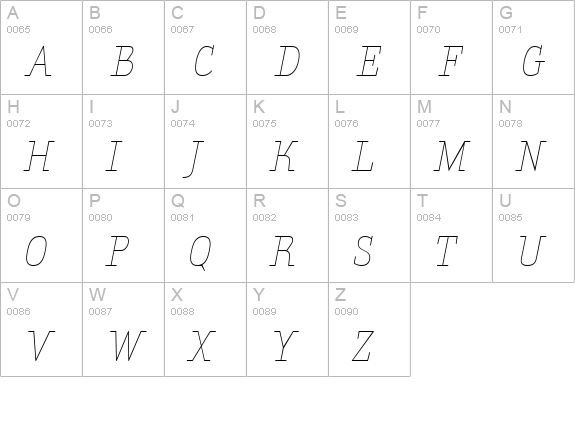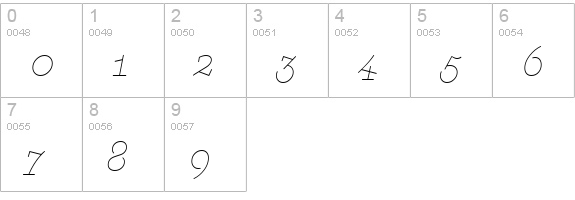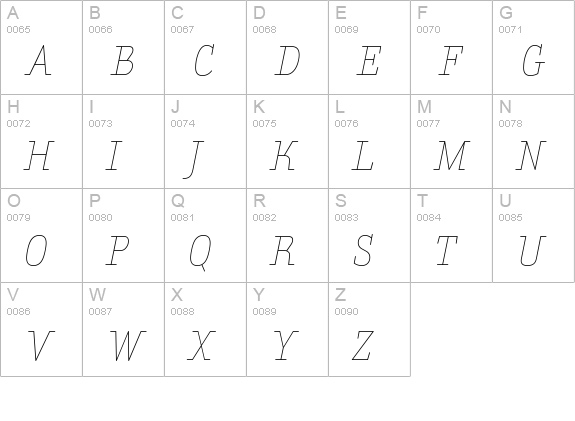
AmintaLightItalic Font Details
AmintaLightItalic is a delicate and elegant typeface that exudes sophistication and charm. Featuring graceful, slanted letterforms with a touch of whimsy, this font is perfect for adding a touch of elegance to your designs. The thin strokes and flowing curves of AmintaLightItalic create a sense of lightness and grace, making it ideal for use in projects that require a stylish and sophisticated touch. What makes AmintaLightItalic even more appealing is that it is available for free download at FontsMarket.com. This means that you can easily access this beautiful font and use it in your projects without any cost. Whether you are working on a branding project, invitation design, or any other creative endeavor, AmintaLightItalic is sure to elevate your work with its timeless beauty and charm. Download it now and add a touch of elegance to your designs!